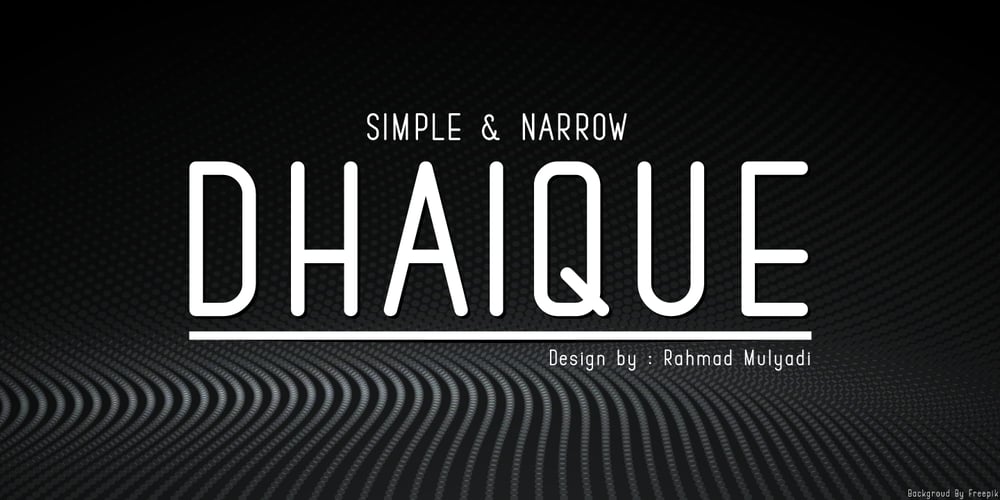
Dhaique Font Family was designed by Rahmad Mulyadi and published by BaronWNM. Dhaique contains 1 styles and family package options. A simple and narrow style font. Multilingual letter, numbers, punctuation and alternate letters.